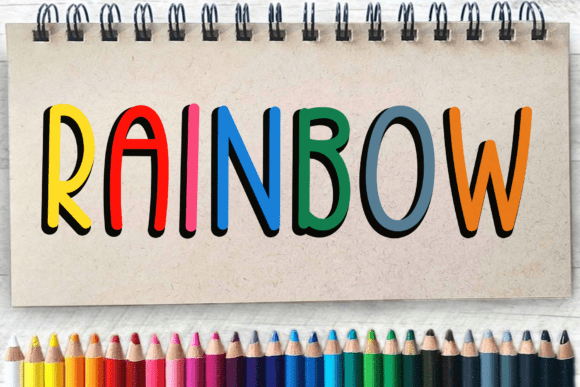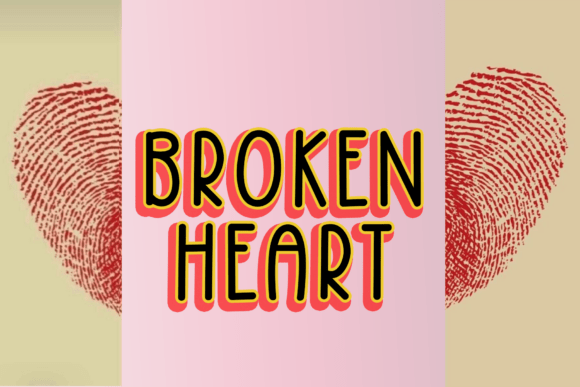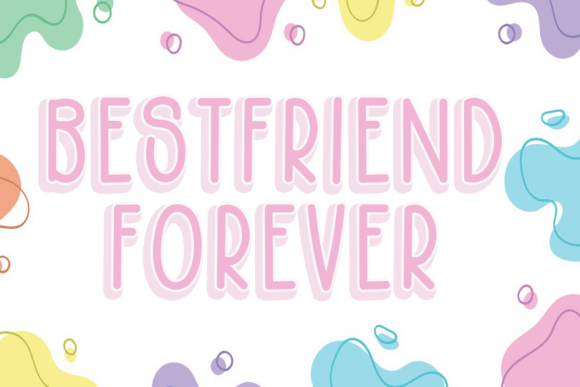
Bestina Font
Bestina is a lovely script font with exquisite letters and perfect calligraphy. This font is great to use on projects that need cursive handwriting and an authentic feel.